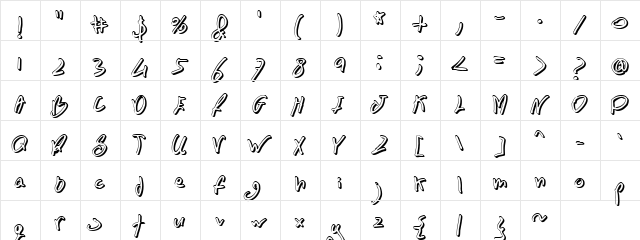
BN FontBoy 3D Regular
Design Context for BN FontBoy 3D Typeface
BN FontBoy 3D is a composed and adaptable typeface that performs quietly and consistently across a wide range of design contexts.